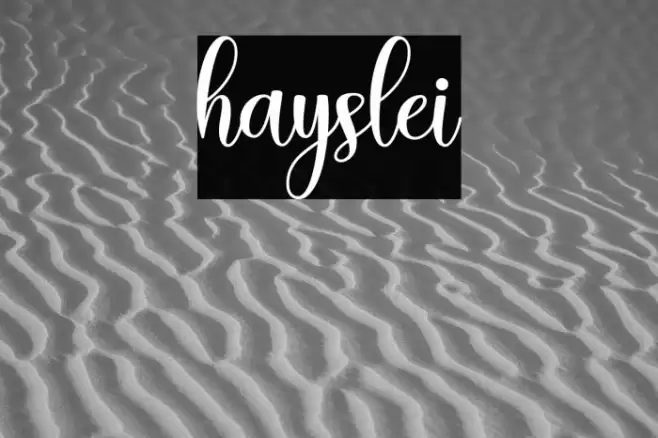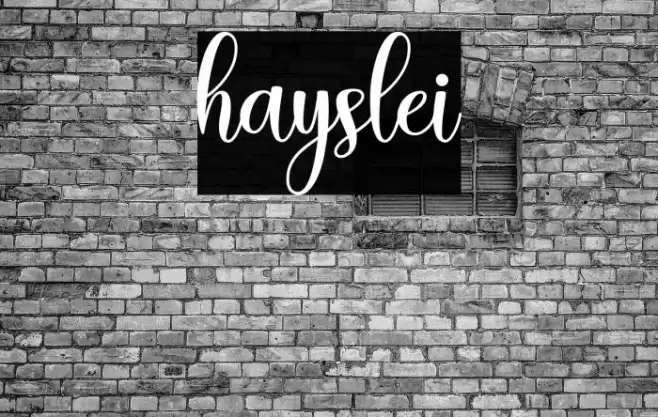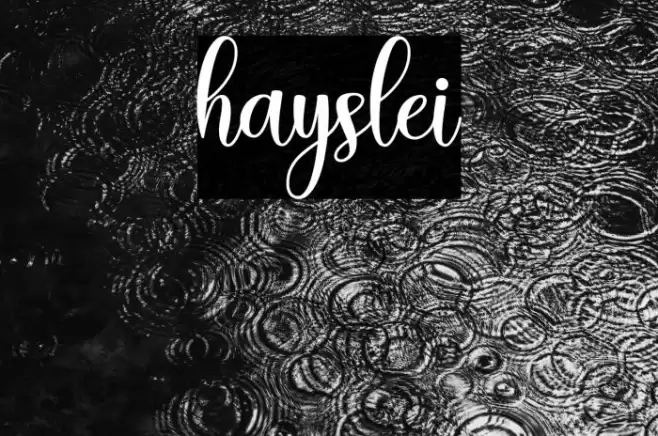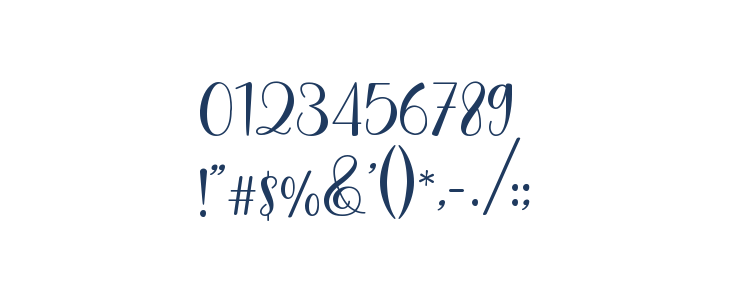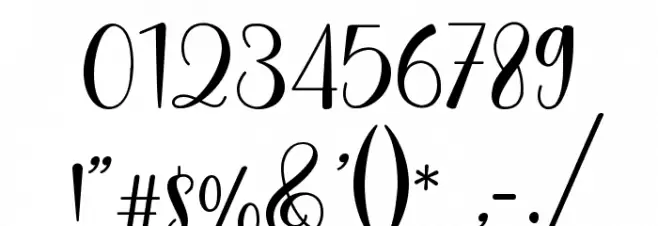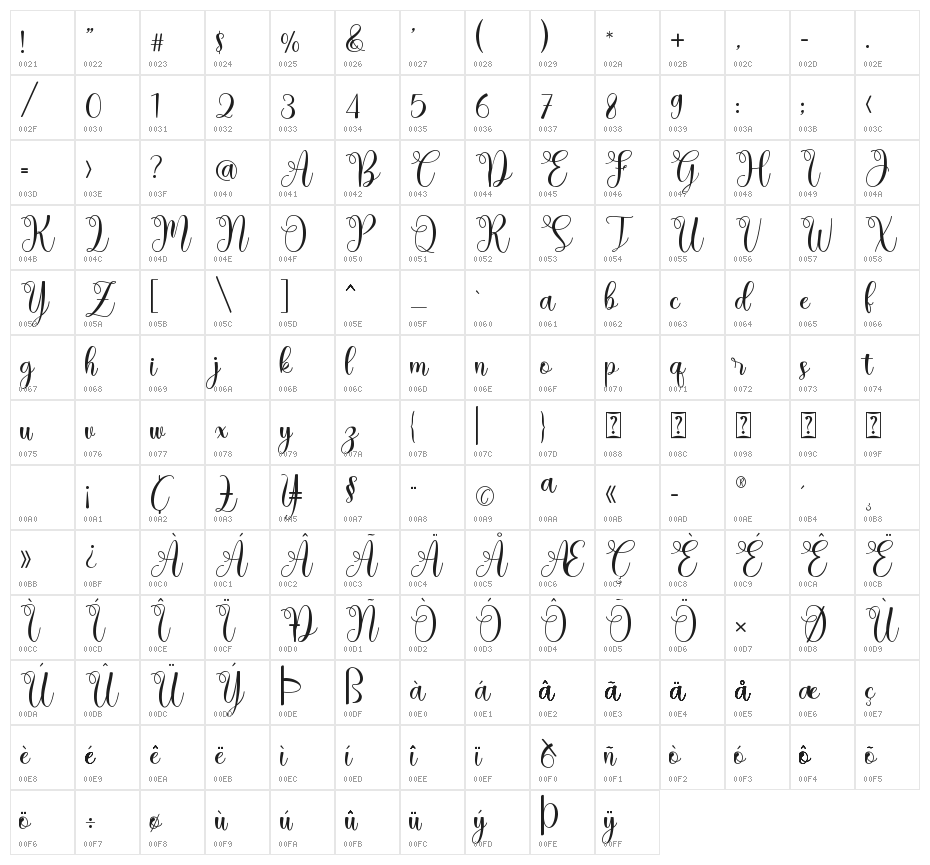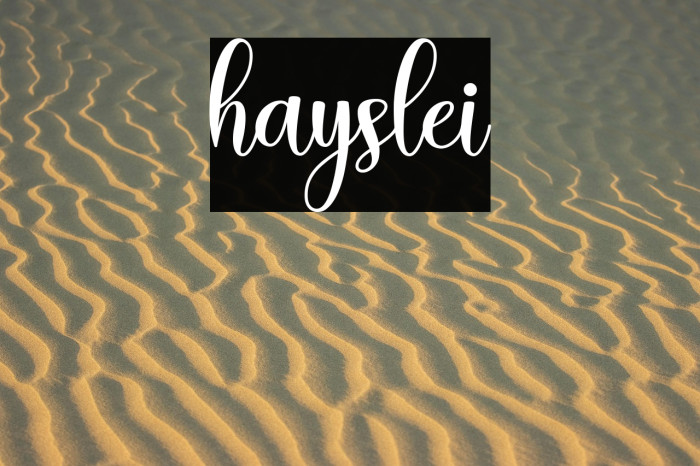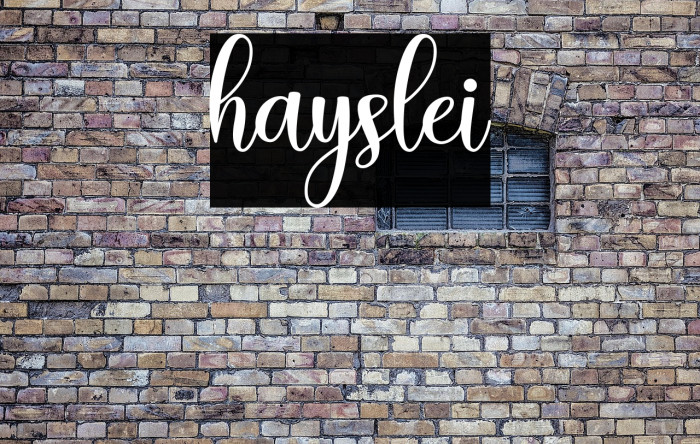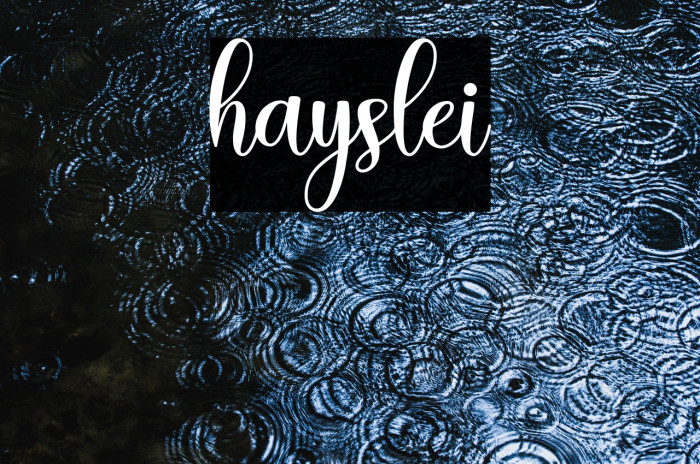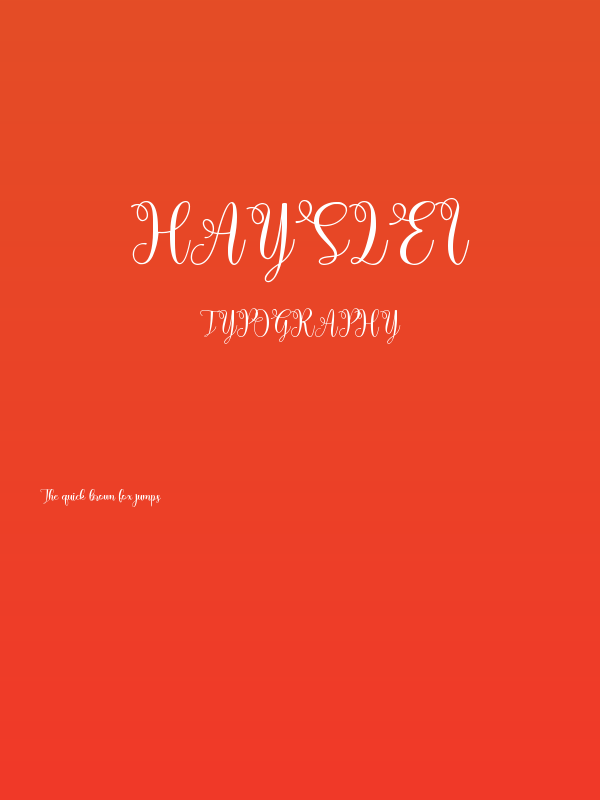
hayslei Font
hayslei Description
This font features a stylish and elegant script design, characterized by its flowing and interconnected letterforms. The uppercase letters exhibit a graceful loop and swirl pattern, adding a touch of sophistication and charm. The lowercase letters maintain a consistent flow, with some letters extending slightly below the baseline, enhancing the font's fluidity. The numerals are clear and legible, with a slight slant that complements the overall script style. Special characters are designed to match the elegance of the alphabet, making this font versatile for various creative applications.
An elegant and flowing script font with interconnected letterforms from Regular fonts.
- Proposed Projects: Ideal for wedding invitations, greeting cards, branding, and logo design.
- Overall Style: Elegant
- Use Case: Logos, Invitations, Decorative text